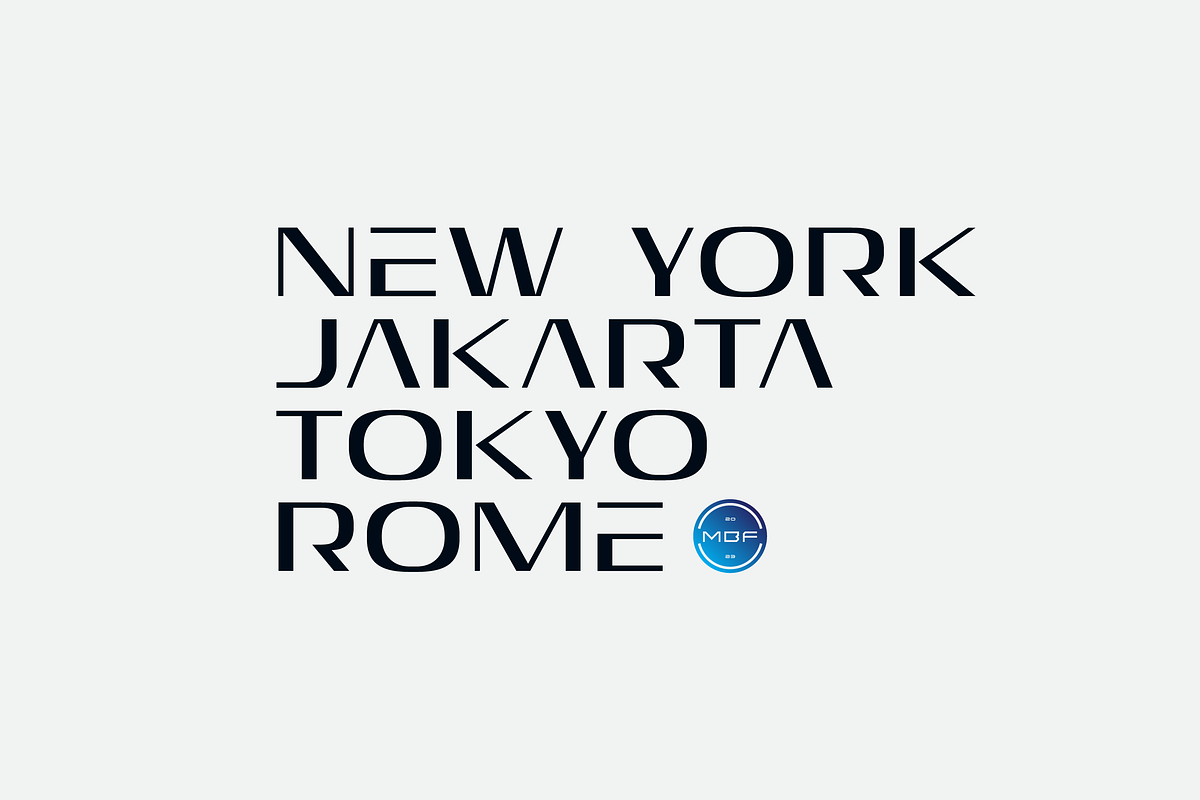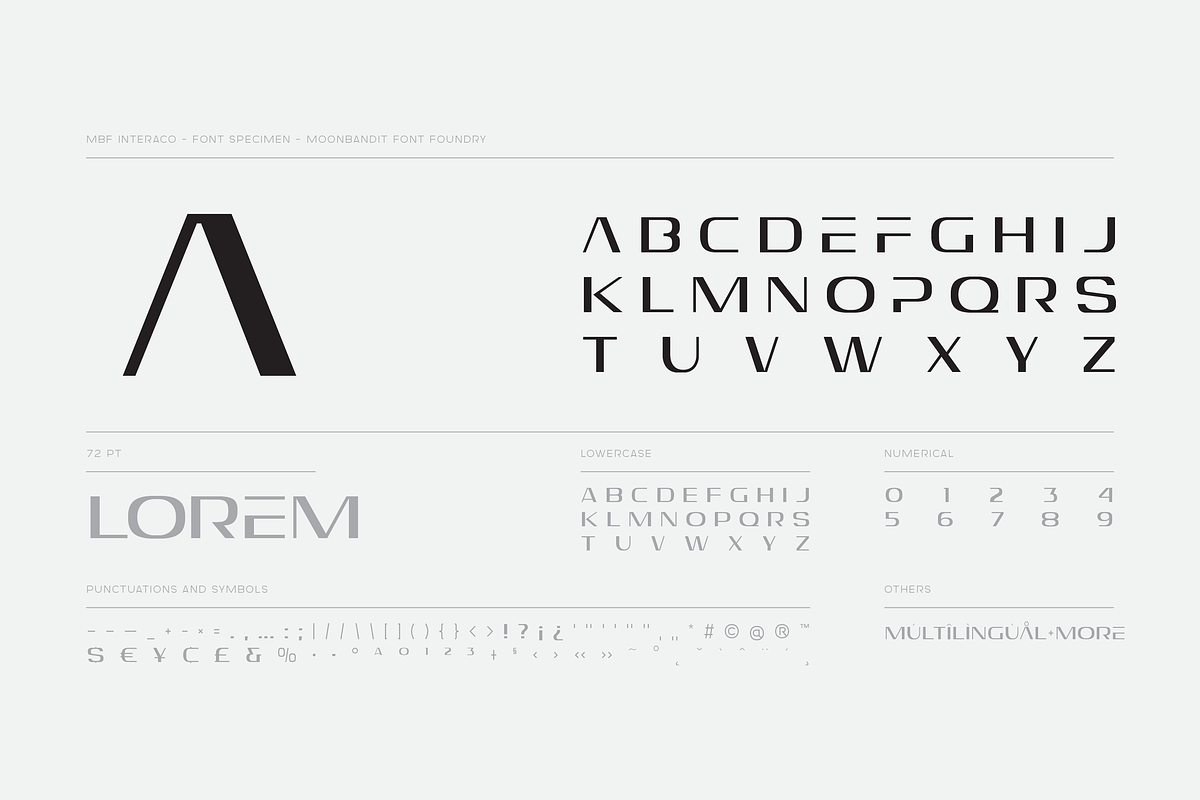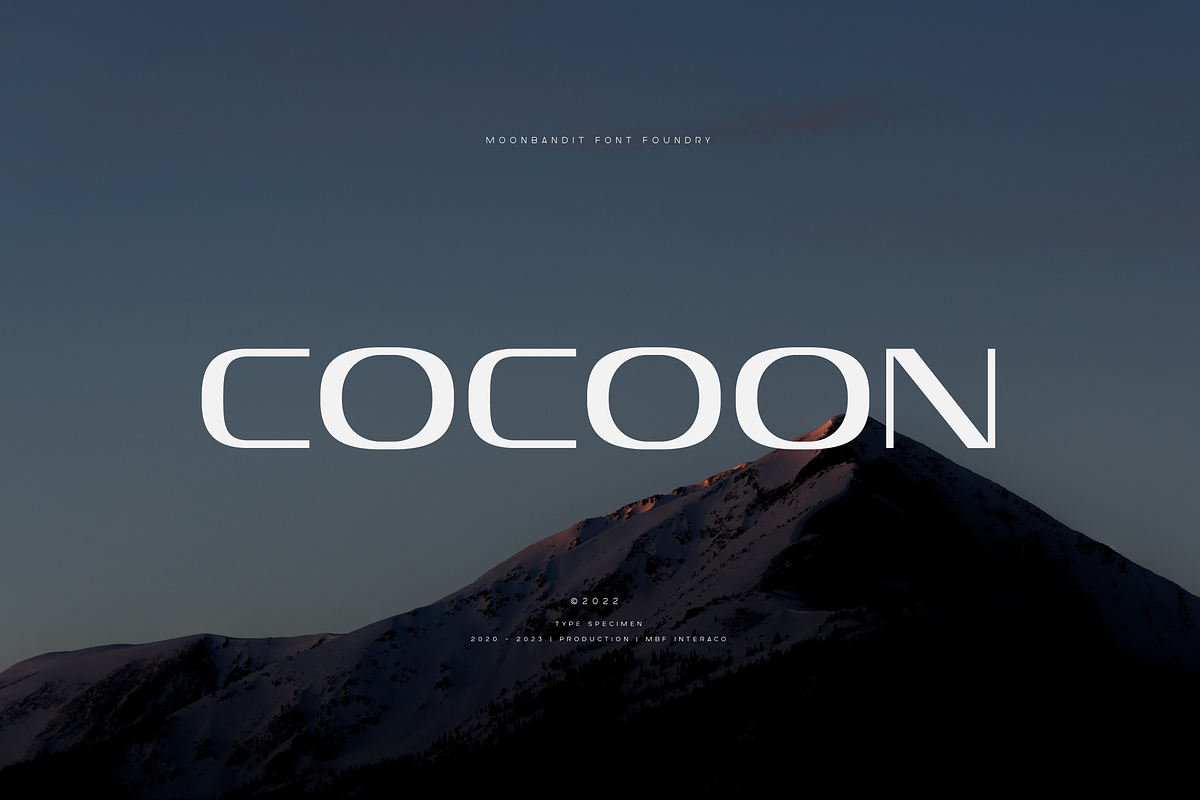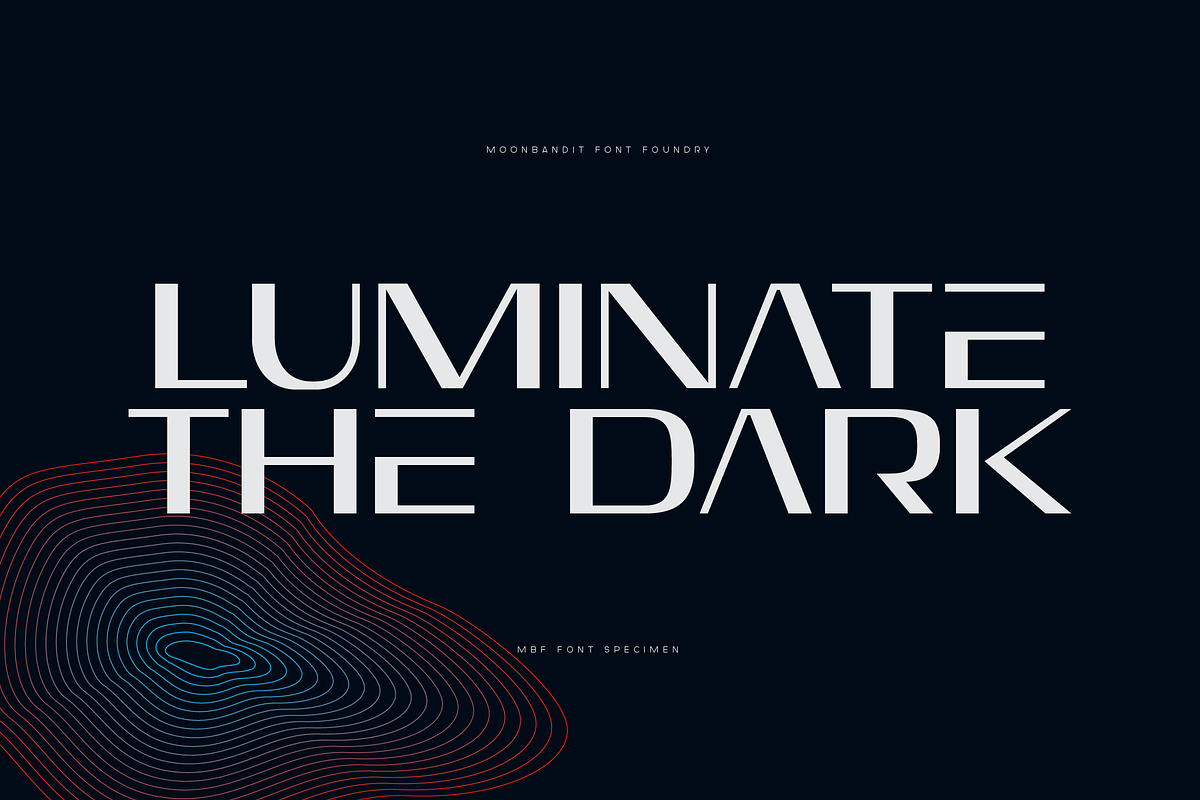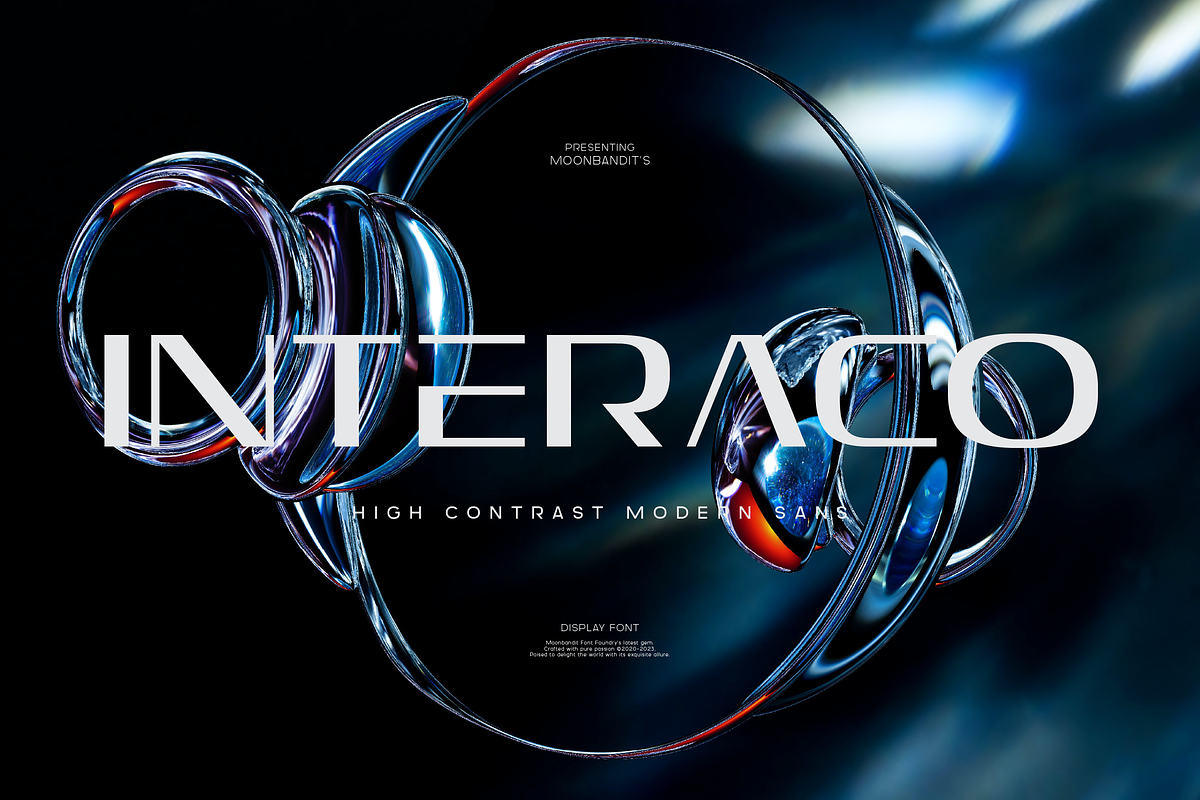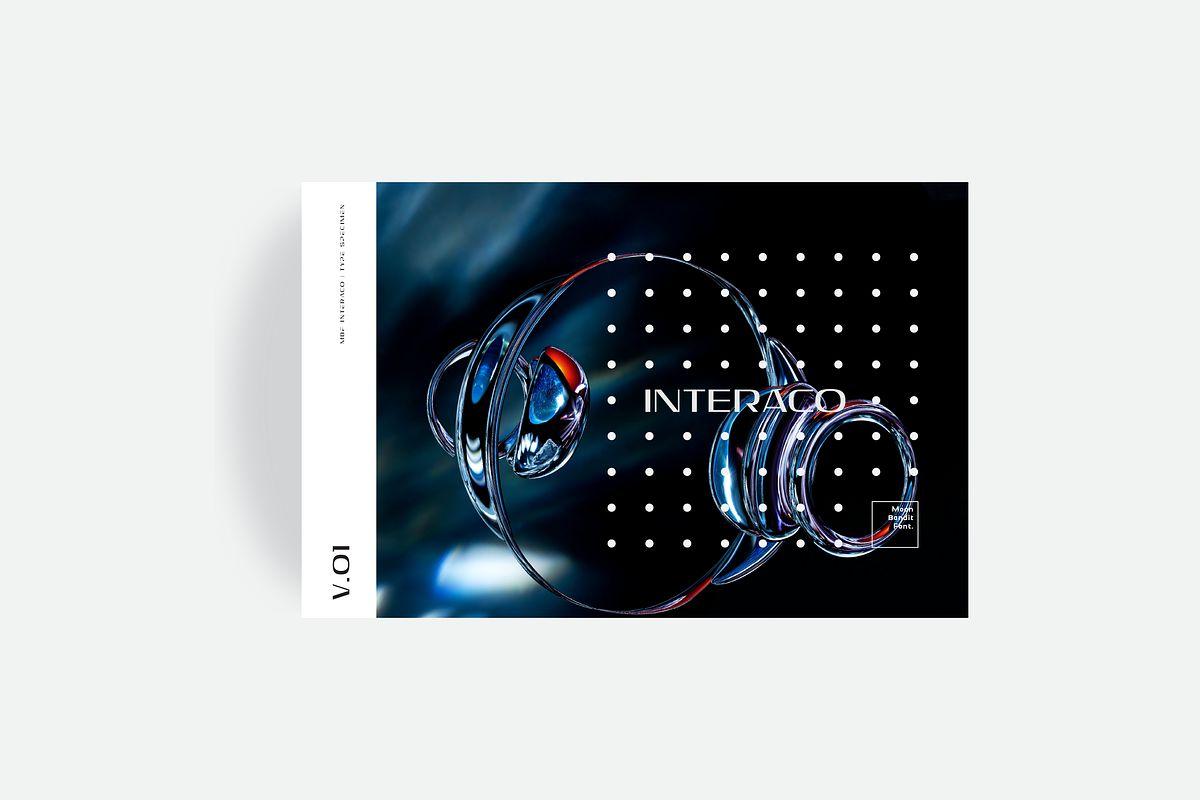
MBF Interaco - Minimalist Wide
The clean and well-defined letterforms of MBF Interaco ensure maximum legibility even at smaller sizes, making it an excellent choice for digital interfaces and print materials alike. Its carefully crafted kerning and spacing guarantee a visually pleasing and harmonious text flow, allowing your message to shine through effortlessly.
Perfectly suited for multilingual designs, MBF Interaco's extensive character set includes support for various languages, catering to a global audience and accommodating diverse typography needs.
Embrace the modern aesthetic and unleash the potential of your designs with MBF Interaco. Whether you're crafting a bold and impactful statement or seeking a sleek and contemporary touch, this all caps display typeface is the ultimate tool to elevate your creative endeavors to new heights.